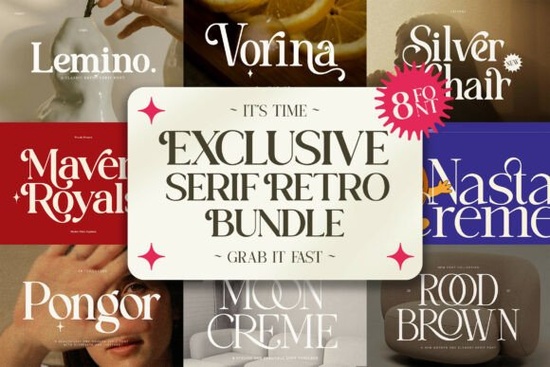
If you're working on a project that calls for vintage elegance think 1960s editorial layouts, retro packaging, or groovy poster designs the Exclusive Serif Retro Bundle Font offers a thoughtfully curated set of typefaces that capture the spirit of classic decades without feeling dated. This bundle includes eight distinct fonts like Lemino, Vorina, and Silver Chair, each bringing its own flavor of mid-century charm to your creative toolkit.
What makes this collection especially useful is how well it balances sophistication with personality. Some fonts lean into high-contrast serifs and refined ligatures ideal for luxury branding or fashion editorials while others offer bolder, more playful forms suited for psychedelic-inspired posters or nostalgic social media graphics. You don’t need to mix and match fonts from different sources; everything here works together visually, which saves time and ensures consistency across your designs.
How does it compare to other serif fonts?
The Exclusive Serif Retro Bundle sits in its own niche: it’s not just “old-looking” it’s intentionally styled after specific visual languages from the 1960s and 70s. That makes it ideal when your goal is authenticity, not just approximation.
Practical uses beyond headlines
While these fonts excel as display faces for titles and logos, several within the bundle are surprisingly legible at smaller sizes. Try using a lighter weight for body text in zines, lookbooks, or product descriptions where you want to maintain a cohesive retro feel throughout. Pairing one of the bolder fonts with a clean sans-serif can also create dynamic contrast great for flyers or social banners where you need both impact and readability.
For crafters using Cricut or Silhouette machines, the clear letterforms and consistent stroke weights translate well to vinyl cutting or heat-transfer projects. Just remember to check spacing and kerning when scaling down, as some decorative elements may become too fine at very small sizes.
Tips for getting the most out of the bundle
- Layer thoughtfully: Combine fonts from the bundle for hierarchy e.g., use Silver Chair for headlines and Lemino for subheads.
- Don’t overdo it: Stick to 1–2 fonts per project to avoid visual clutter, even if you have eight options.
Whether you’re designing a boutique coffee label, a retro music festival poster, or Instagram graphics for a vintage clothing shop, the Exclusive Serif Retro Bundle gives you authentic period-appropriate typography without the guesswork. It’s a practical, versatile resource that respects both design history and modern workflow needs.